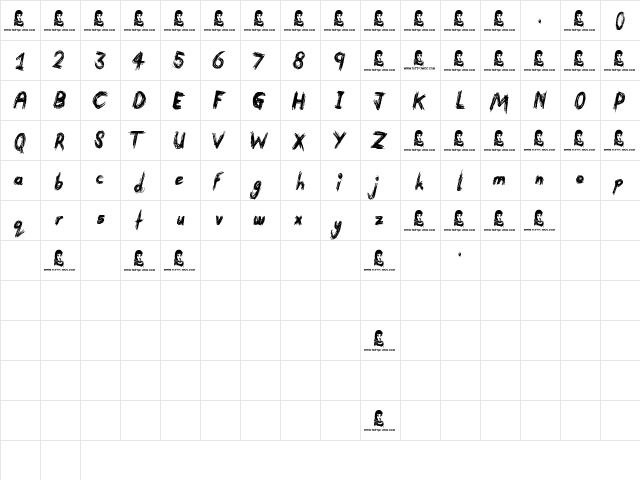
Devastated Regular
| Foundry | Jonathan S. Harris |
| Designer | Jonathan Stephen Harris |
Design Context for Devastated Typeface
Devastated is a composed and adaptable typeface that performs quietly and consistently across a wide range of design contexts.